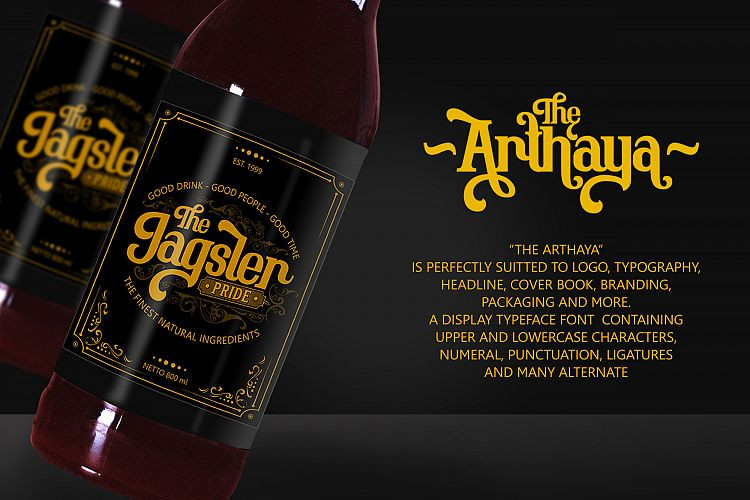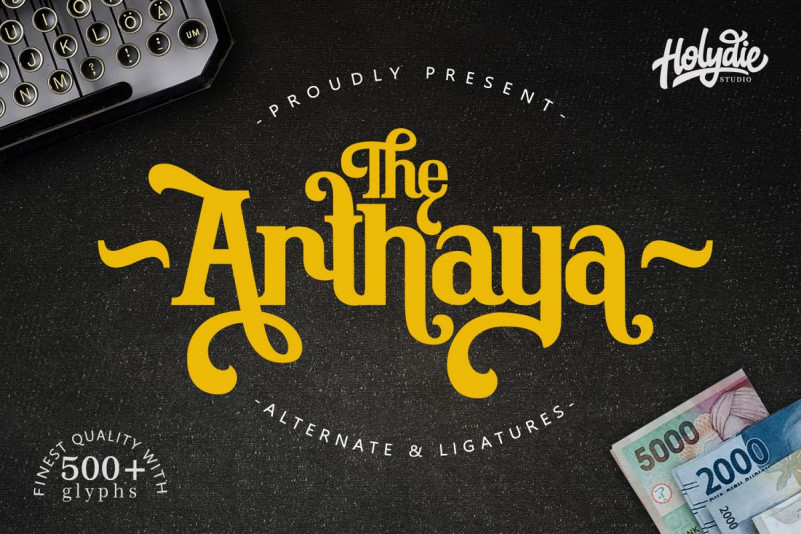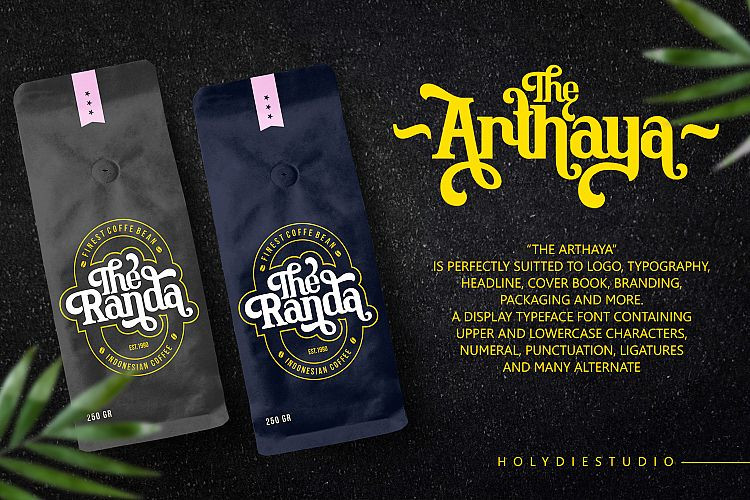
The Arthaya Font
The Arthaya is nicely balanced curves with a little aesthetic touch. Strong character Perfectly for headlines, logos, posters, packaging, T-shirts, postcards and much more.